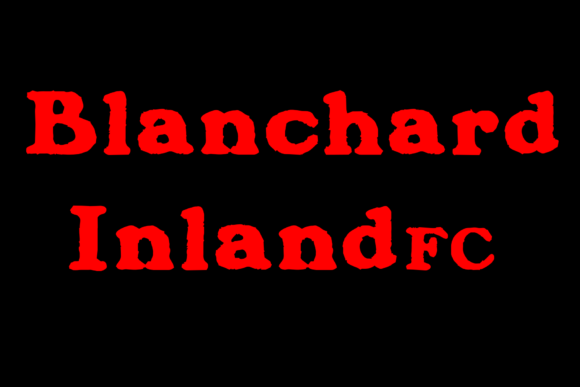
The Timeless Revival of a Century-Old Classic: Blanchard Inland Fc Font
Have you ever stumbled upon an old, forgotten book or document that instantly sparks your imagination and creativity? For many designers, this moment is a treasure trove of inspiration, where the lines between past and present blur, and the possibilities are endless. This sense of nostalgia is exactly what the meticulously digitized Blanchard Inland Fc Font aims to evoke, while still catering to the demands of modern design.
This beautifully crafted typeface is a tribute to the Inland Type Foundry’s initial release in the early 20th century. By seamlessly marrying traditional craftsmanship with digital precision, the Blanchard Inland Fc Font offers designers a unique opportunity to tap into the past, while staying true to contemporary design aesthetics.
Blanchard Inland Fc Font Key Features
- Font Family: Blanchard Inland Fc Font is a serif font, designed specifically for use in typography.
- Unique Characteristics: The Blanchard Inland Fc Font features a distinctive, classic serif design with subtle flair at the terminals, giving it a sophisticated and elegant look.
- Legibility: The font is highly legible, making it suitable for use in a wide range of applications, including body text, headlines, and titles.
Designer Review: Blanchard Inland Fc Font
At first glance, the Blanchard Inland Fc Font seems like a solid choice for any project that requires a classic, elegant feel. Here are a few things that stand out to me: ✨
- The font’s high x-height makes it perfect for body text, as it ensures that even the smallest text is still easy to read.
- The font’s elegant feel makes it ideal for use in high-end branding and advertising.
- The font’s classic look is timeless and won’t go out of style anytime soon.
- The font may be too elegant for certain projects, making it seem out of place.
- The font lacks bold and italic variants, which may limit its use in certain situations.
Overall, I think the Blanchard Inland Fc Font is a great choice for projects that require a classic, elegant feel. While it may not be perfect for every project, it’s definitely worth considering for any project that needs a touch of sophistication. With a little creativity and experimentation, I think this font has the potential to be a real showstopper.
The Blanchard Inland Fc Font is ideal for creating rustic, vintage-inspired designs. It’s perfect for:
1. Branding and logo design.
2. Marketing materials, such as flyers and brochures.
3. Social media graphics and posts.
Remember to use the font in moderation to avoid overwhelming the design.